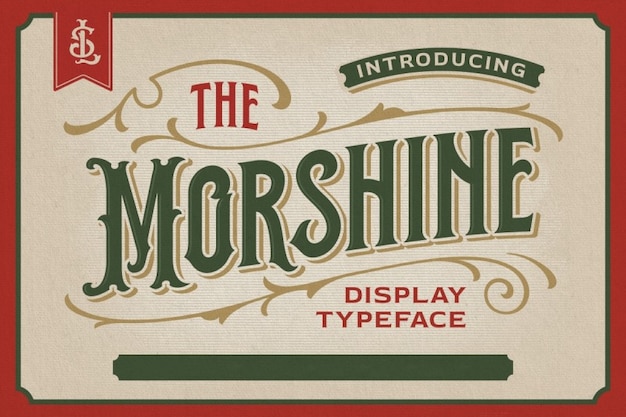
The Morshine Font
Want your projects to resemble those nostalgic and vintage labels from the late 1800s? Morshine is the perfect typeface! Inspired by vintage lettering from Victorian era signs and products, it is also a bold and solid font that's perfectly suitable for labels, products, posters, and even stationary!